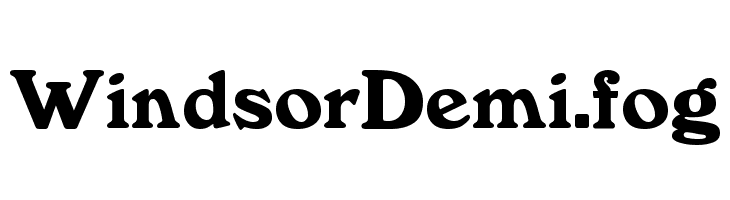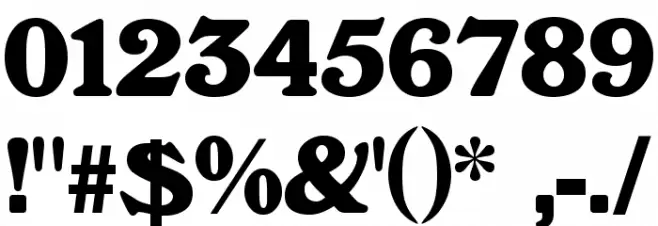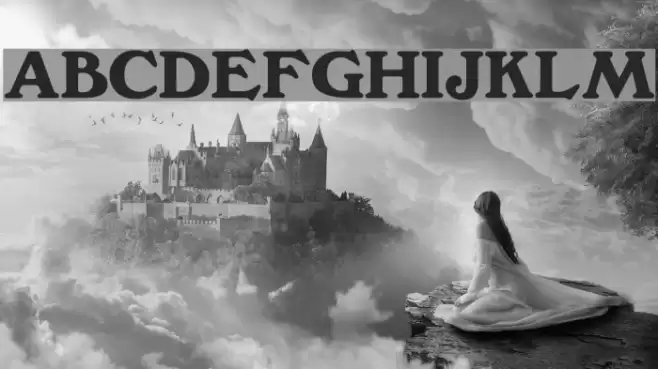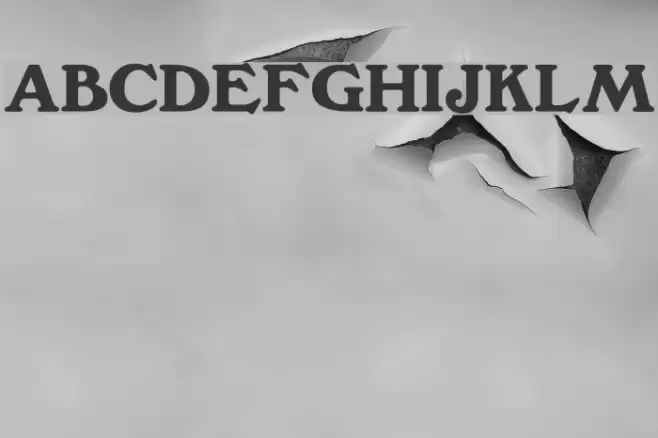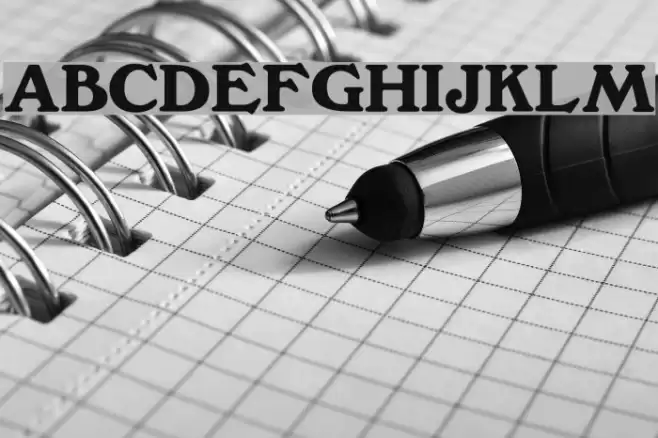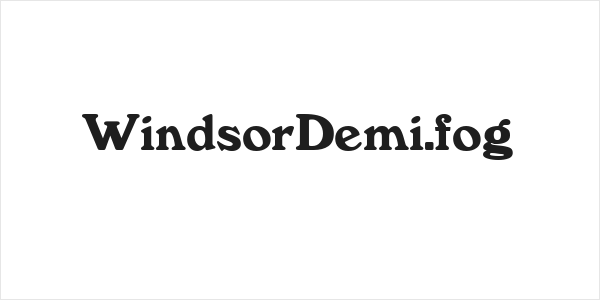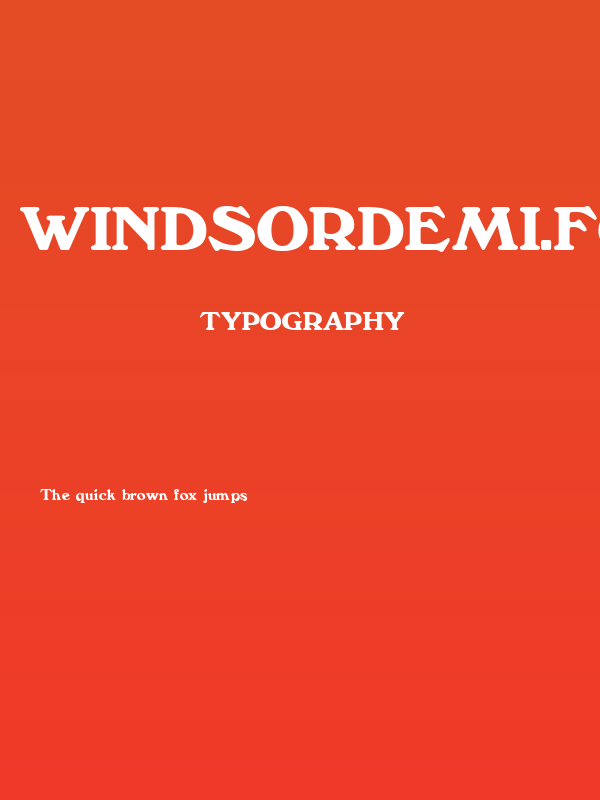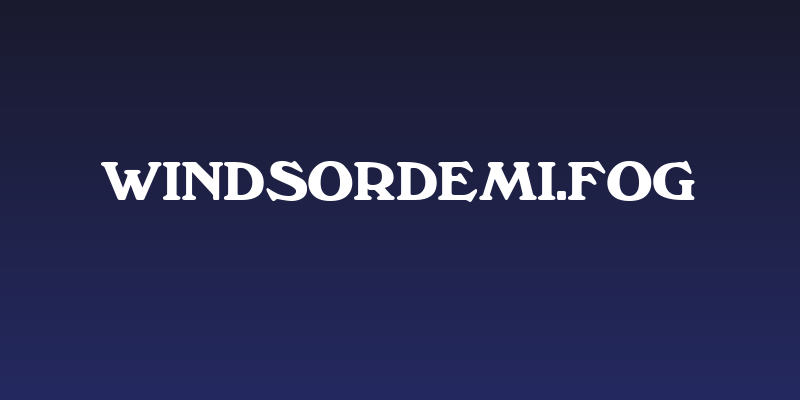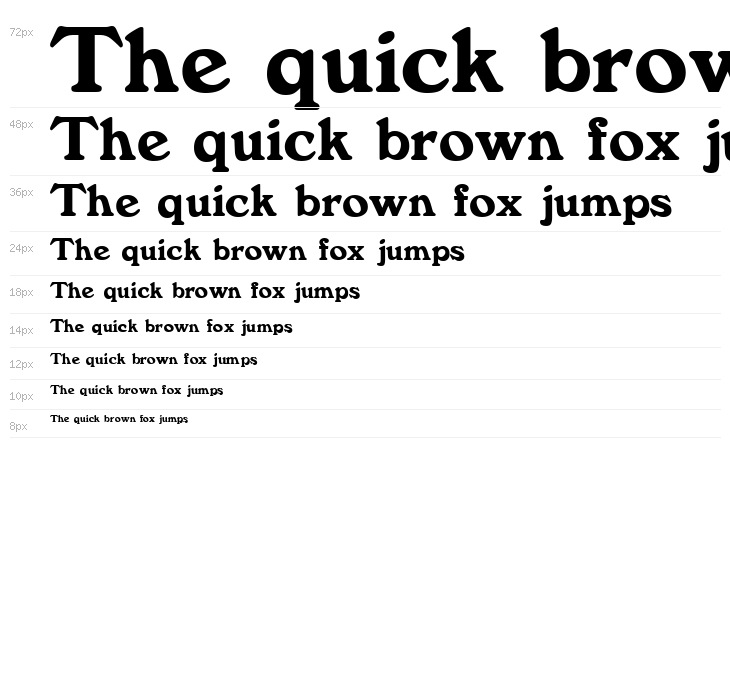
WindsorDemi.fog Font
WindsorDemi.fog Description
This font exhibits a bold and distinctive style with a strong presence. The uppercase letters are characterized by thick, rounded serifs and a slightly condensed form, giving them a robust and authoritative appearance. The lowercase letters maintain a consistent weight, with rounded edges and a smooth flow, enhancing readability. The numerals are equally bold, with a uniform thickness that matches the overall style of the font. Special characters are designed with the same attention to detail, ensuring they integrate seamlessly with the rest of the character set. This font's boldness and unique character make it suitable for impactful designs.
| Proposed Projects | Ideal for branding, headlines, posters, and any design requiring a bold statement. |